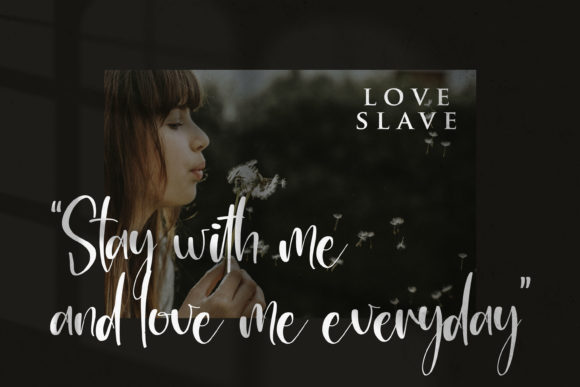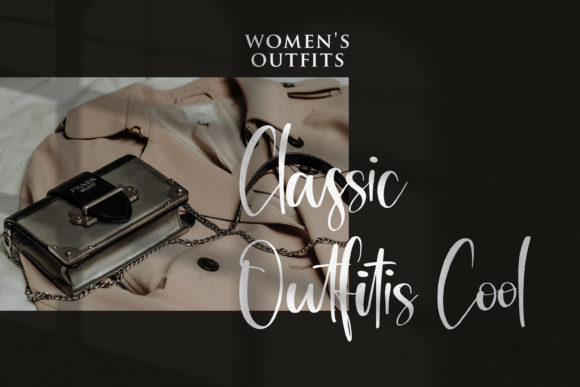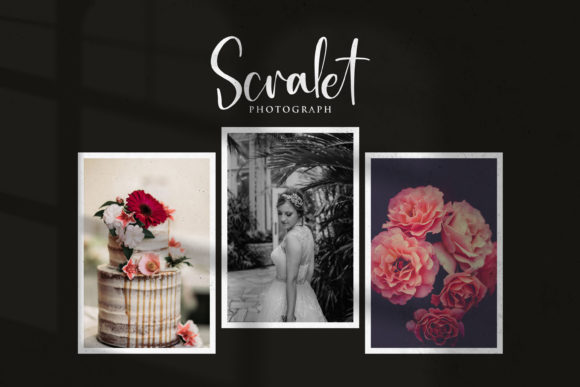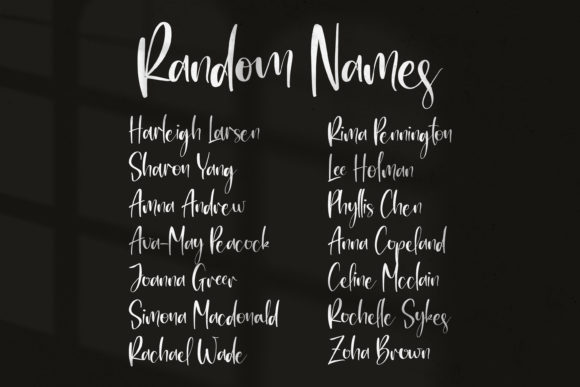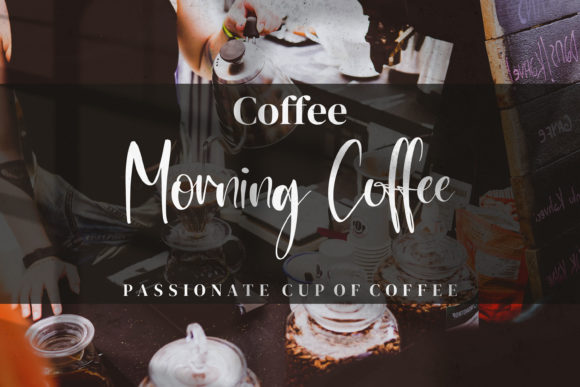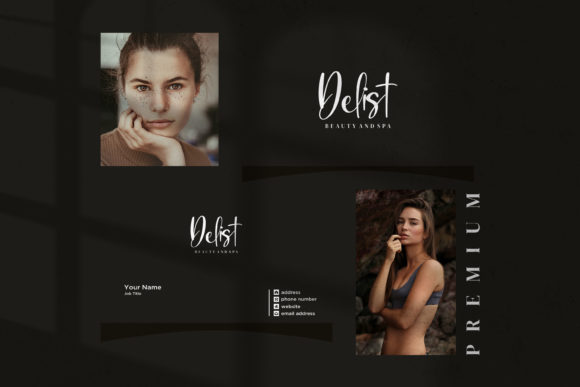
Introduction to Rossalyta Nataly Font Font
Fonts play a crucial role in design, and the Rossalyta Nataly Font font is a typeface that brings both character and versatility to any project. Whether you’re working on a branding project, a website, or a print design, the Rossalyta Nataly Font font offers a unique style that can elevate your work.
Rossalyta Nataly is a romantic and sweet calligraphy typeface with characters that dance along the baseline.
Key Features of Rossalyta Nataly Font Font
Why Choose Rossalyta Nataly Font Font?
The Rossalyta Nataly Font font is more than just a typeface – it’s a design tool that helps you communicate your message with style and clarity. Its unique character set and versatile design make it suitable for a wide range of applications, from elegant invitations to bold headlines.
With its carefully crafted letterforms and balanced proportions, the Rossalyta Nataly Font font ensures readability and visual appeal across all mediums.
What makes Rossalyta Nataly Font font special?
The Rossalyta Nataly Font font stands out with its unique design, exceptional readability, and versatility across various design applications.